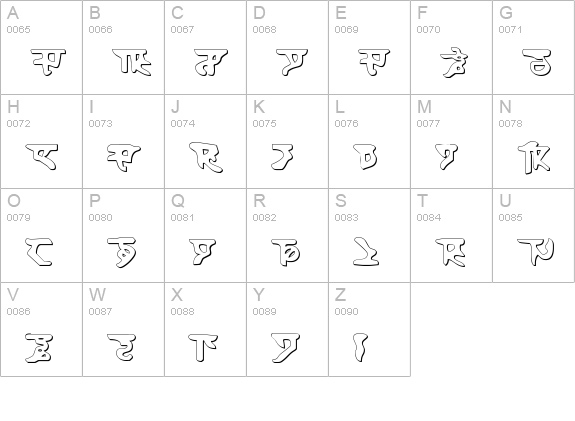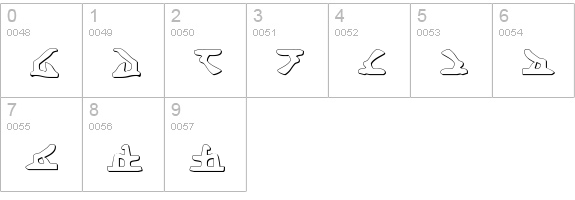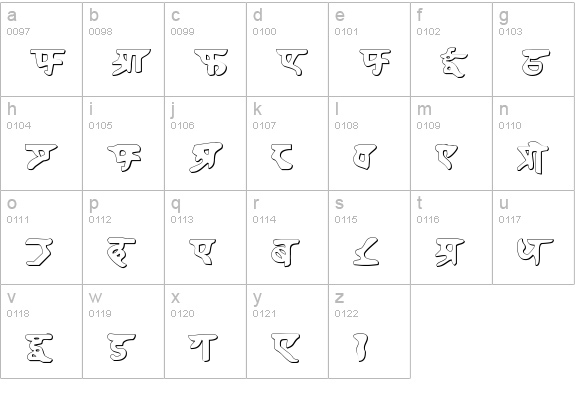
Homeworld Shadow font is a captivating typeface that exudes a mysterious and ethereal aura. Its elegant and intricate design makes it perfect for adding a touch of sophistication to any project. The delicate curves and sharp edges of the letters create a unique visual appeal that will surely make your text stand out. What makes Homeworld Shadow font even more appealing is that it is available for free download at FontsMarket.com. This means you can easily access this stunning font and use it in your designs without any cost. Whether you're working on a branding project, a website design, or any other creative endeavor, Homeworld Shadow font will elevate your work to the next level. Download it today and unleash its beauty in your projects.